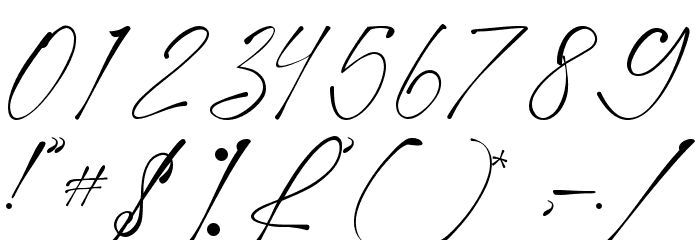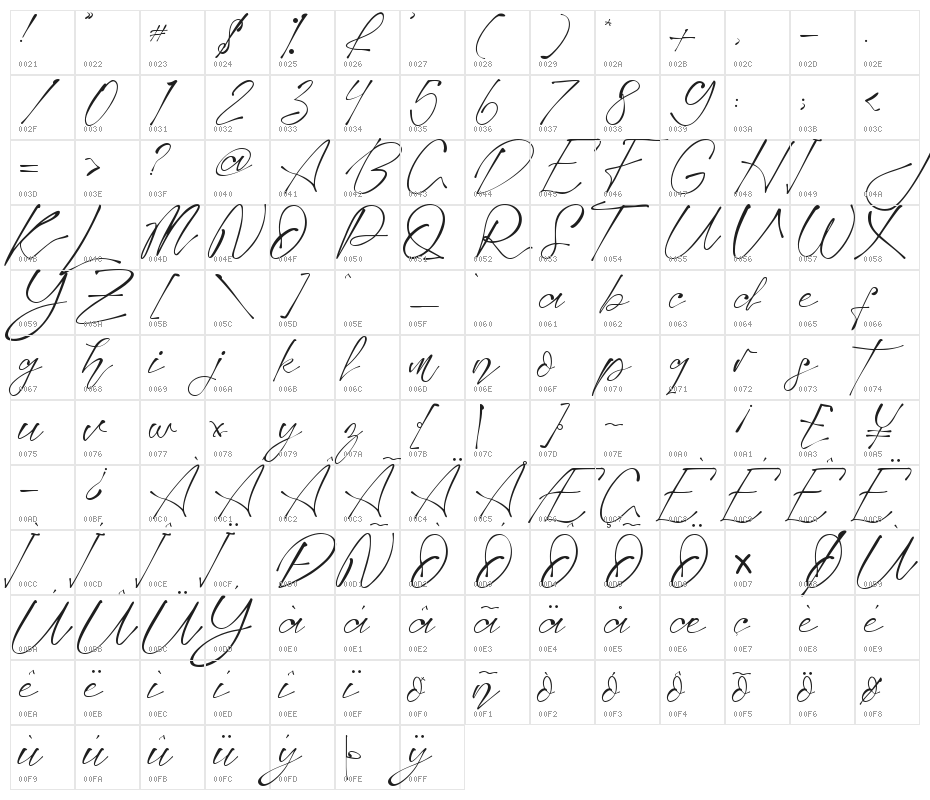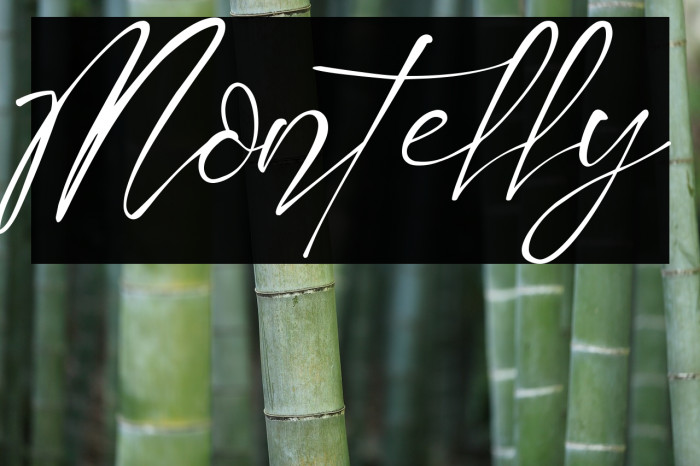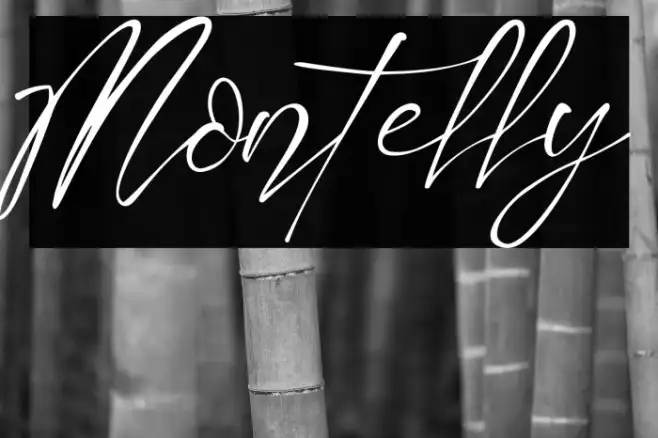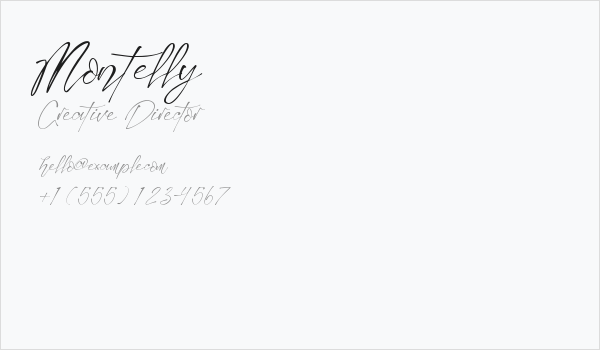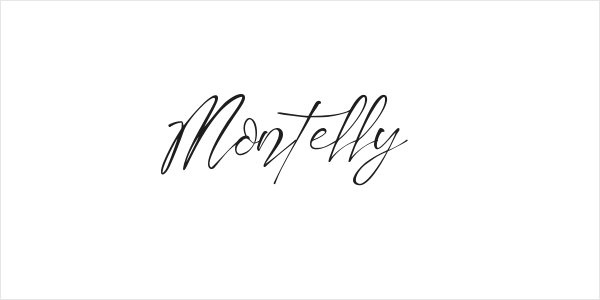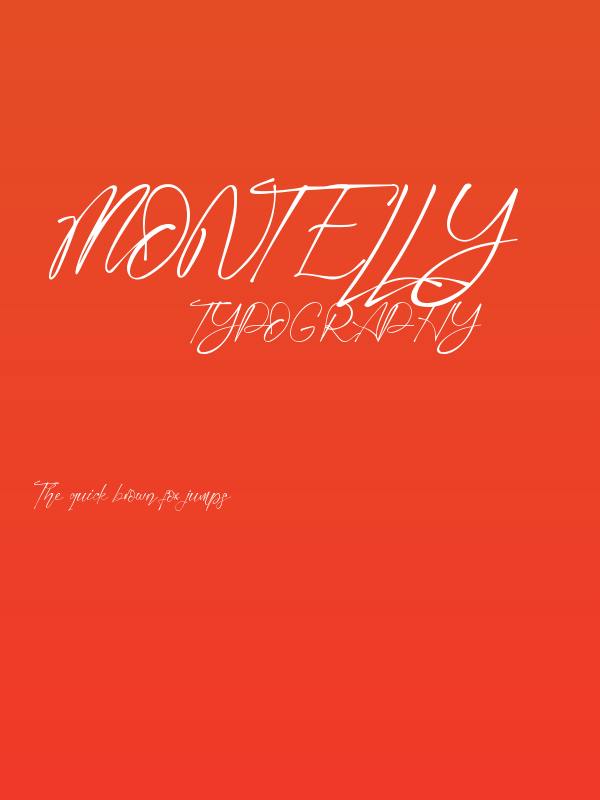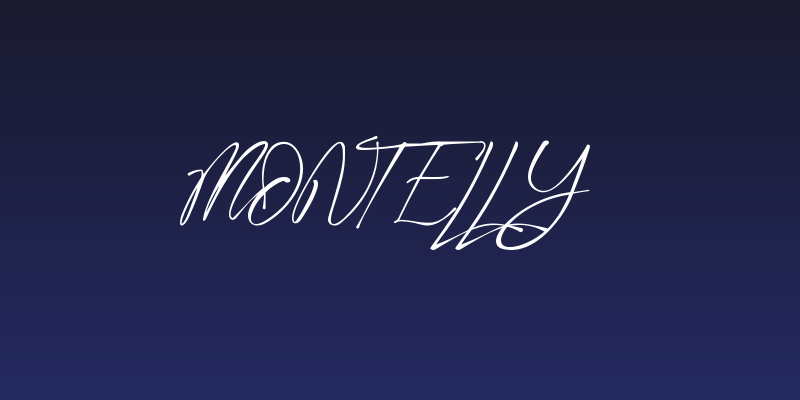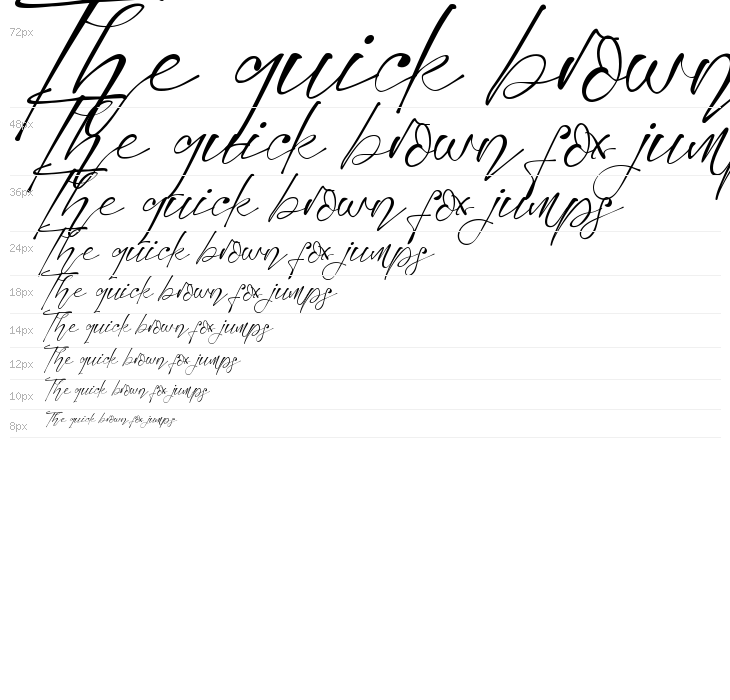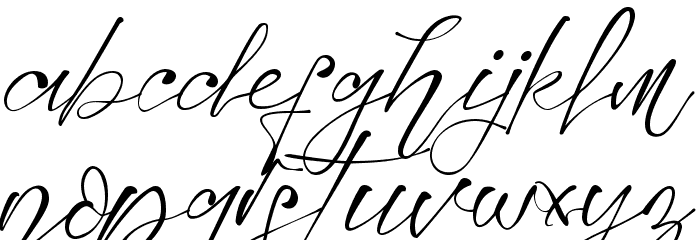
Montelly Font
Montelly Description
This font exudes elegance and fluidity, characterized by its cursive style and graceful strokes. The uppercase letters are tall and slightly slanted, with a sophisticated flair that suggests a handwritten touch. The lowercase letters maintain a consistent flow, with loops and curves that enhance its script-like appearance. Numbers and special characters follow the same elegant style, ensuring a cohesive look across all text. The overall design is both artistic and legible, making it suitable for creative and formal applications.
| Proposed Projects | Ideal for wedding invitations, elegant branding, personal signatures, and artistic projects. |